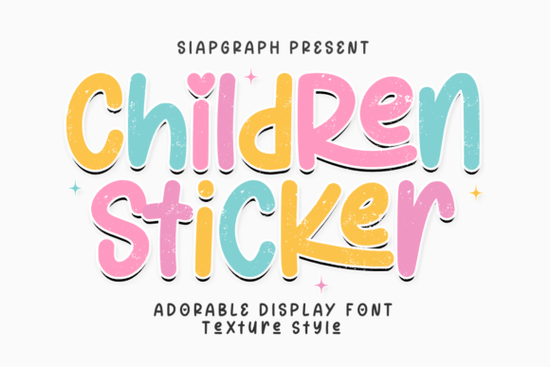
Creating custom decals for kids requires typography that is both highly legible and visually engaging. The Children Sticker Texture Font provides exactly that balance. Designed with soft, rounded strokes and cheerful proportions, this display typeface is built specifically for crafters, print-on-demand sellers, and small businesses targeting a younger demographic. Whether you are preparing for the Back to School season or designing personalized nursery wall art, this font ensures your text remains readable while adding a spirited touch to your layouts.
How does this typeface perform with vinyl cutters?
One of the biggest frustrations for the crafting community is dealing with intricate typefaces that tear during the weeding process. Because this typeface features clean, bold lines, it is perfectly optimized for digital cutting machines. The thick strokes prevent small letters from curling or ripping when you apply transfer tape. This makes it an excellent choice for producing custom lunchbox decals, school labels, and children's t-shirt designs in bulk.
If you run a small craft business, saving time on weeding directly improves your profit margins and production speed. The uniform thickness also means it works beautifully with both adhesive vinyl for hard surfaces and heat transfer vinyl for apparel. When pressing onto cotton t-shirts or canvas tote bags, the bold shapes ensure the design remains intact even after multiple washes, which is a critical selling point for parents buying custom clothing.
What projects work best with rounded, playful letters?
Typography sets the mood for any design, and these cheerful characters immediately communicate fun. The whimsical nature of these letters makes them ideal for products that need to feel friendly and approachable. Print-on-demand sellers can use this file to quickly generate new product lines for online storefronts.
- Classroom Decor and Teacher Gifts: Use it to create name tags, welcome signs, or personalized mugs for teacher appreciation week. The friendly aesthetic perfectly matches an educational environment.
- Birthday Invitations and Party Favors: The bold shapes ensure the party details stand out, even when printed on textured cardstock or used as decals for water bottles.
- Digital Scrapbooking: It pairs beautifully with bright, colorful backgrounds for capturing childhood memories and creating engaging digital albums.
- Holiday Themes: From Children's Day to Spring celebrations, the joyful style fits festive branding and seasonal social media graphics perfectly.
How can I pair this font with other display styles?
While this font is fantastic for primary headings, mixing it with contrasting typefaces can give your designs a professional edge. For example, if you want to add a bit of edge to a teen's bedroom poster, you might pair it with a textured grunge style typeface for the subtext. This contrast highlights the softness of the main letters. For a highly structured, geometric look on a tote bag, combining it with an heavy block lettering option creates a striking visual hierarchy that catches the eye.
Designers working on branding for family-oriented businesses often need variety in their toolkits. You could use a sleek minimalist typeface for the company contact details to keep things readable, while letting the playful letters handle the main logo. If your project requires something elegant but slightly vintage, exploring a classic serif display option can offer a nice contrast for multi-generational appeal. To see more assets tailored specifically for kids' crafts, you can always browse the broader collection of whimsical display typefaces to build out your asset library and find complementary graphics.
What steps should I take before cutting my first sticker sheet?
Before you send your design to the cutting mat, run through this quick checklist to ensure a smooth production process:
- Check the weld settings: If you are combining this typeface with any script elements, make sure to weld overlapping letters in your design software so the cutter treats the word as a single shape.
- Adjust the tracking: Since the letters have bold, rounded shapes, increase the letter spacing slightly so they don't visually merge when cut at very small sizes.
By setting up your file correctly from the start and choosing the right material pairings, you can produce high-quality, durable decals that parents and kids will love.